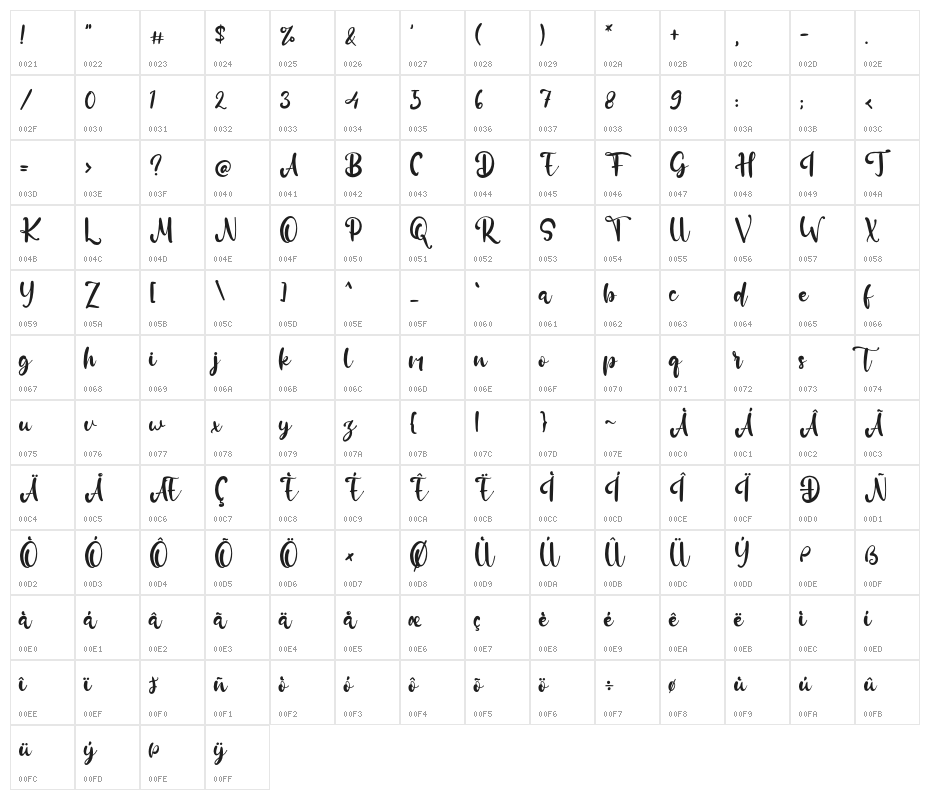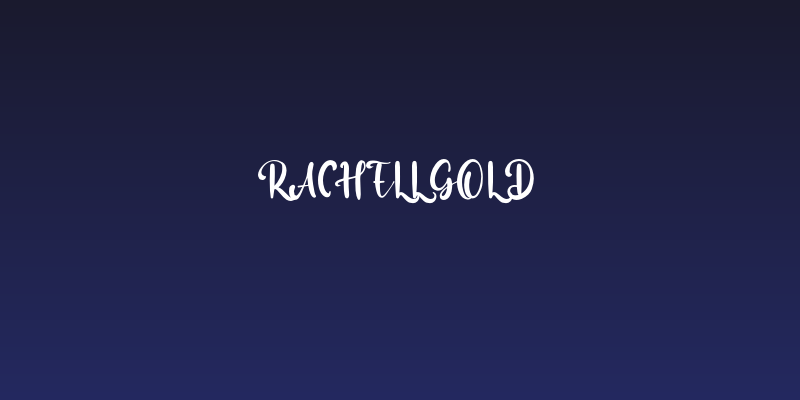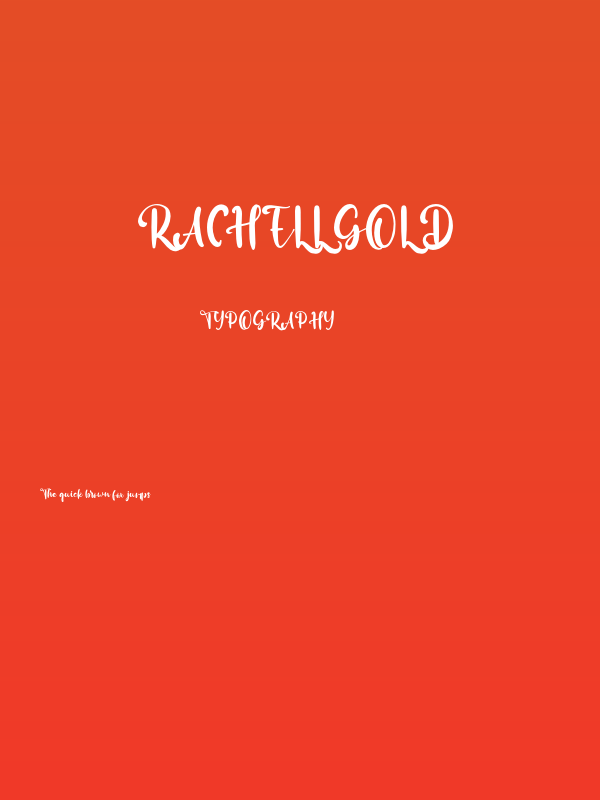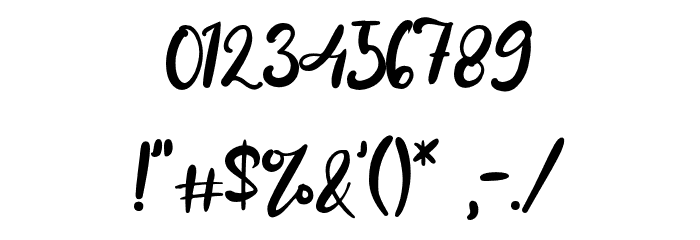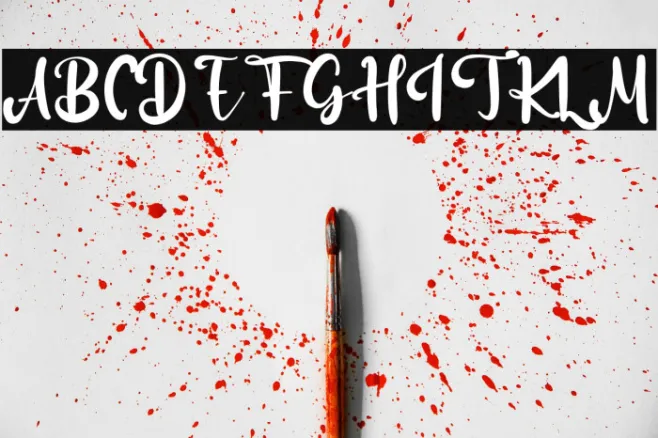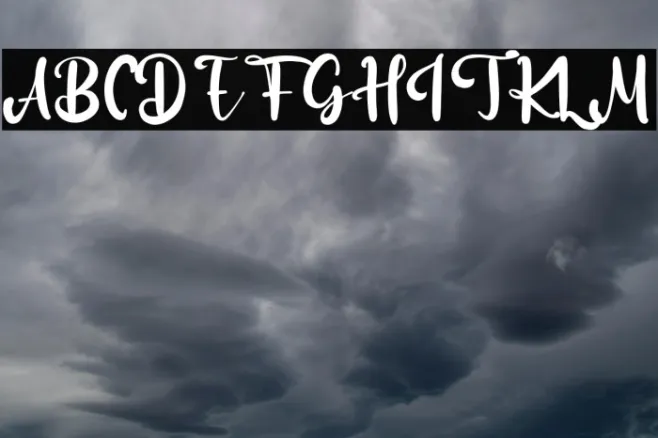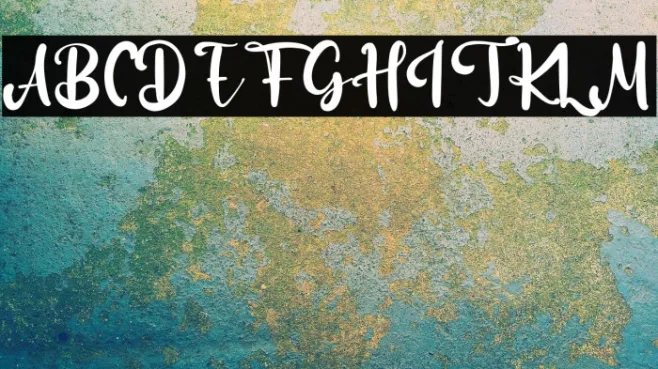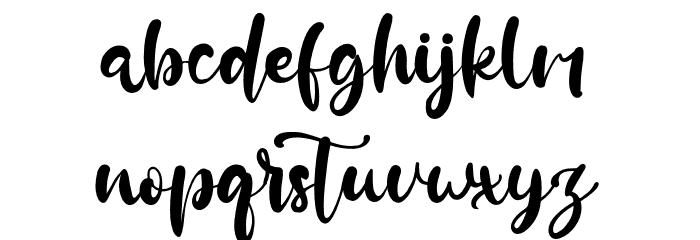
RachellGold Font
RachellGold Description
This font features a lively and expressive script style, characterized by its fluid and dynamic strokes. The uppercase letters are bold and slightly slanted, with a playful flair that adds a sense of movement. The lowercase letters are more compact, maintaining a consistent flow with elegant loops and curves. The numerals are distinct and easily readable, while the special characters complement the overall style with their unique and artistic forms. This font exudes a sense of creativity and spontaneity, making it ideal for projects that require a personal touch.
| Use Case | Logos, Invitations, Creative projects |
| Proposed Projects | Perfect for wedding invitations, greeting cards, branding, and creative projects that require a personal and artistic touch. |